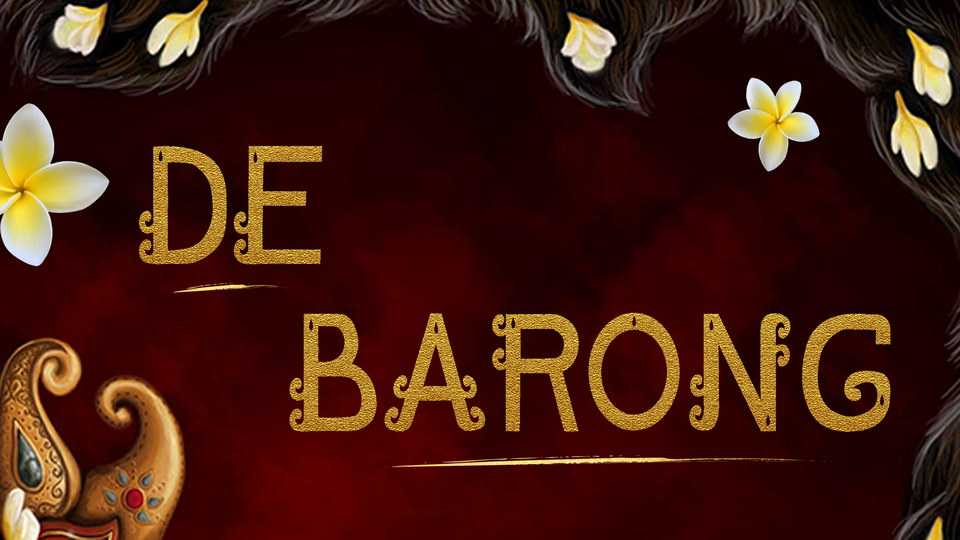
Download De Barong font, a heavily inspired ethnic typeface of “Barong”. It derives from a panther-like creature in Balinese mythology of Bali, Indonesia.
Designer: Patricia Chamora